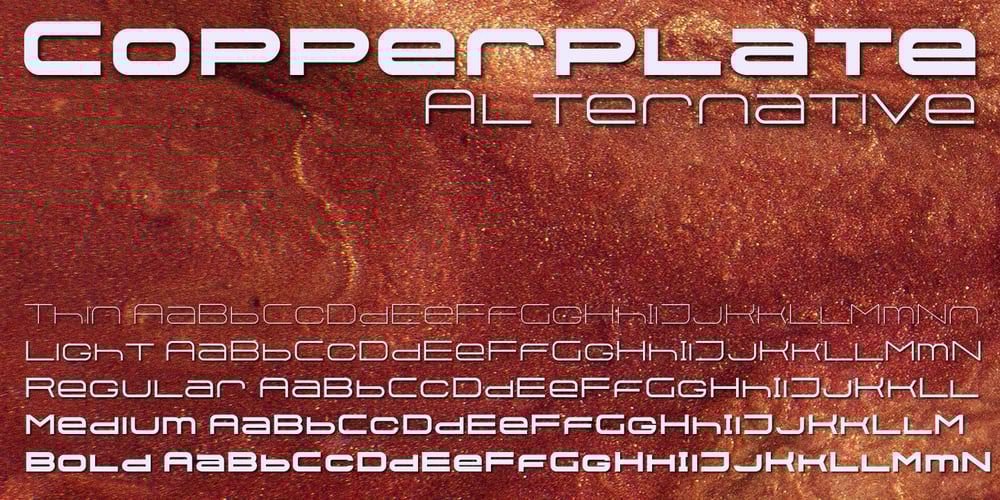
Copperplate Alt Font Family was designed by Gert Wiescher and published by Wiescher Design. Copperplate Alt contains 5 styles and family package options. Copperplate Alt is the sister font to Copperplate Wide. The »Alt« version stands for alternative and has lowercase letters that are slightly smaller than the uppercase. It gives you another possibility to use this elegant typeface. Your forever inventive type designer – Gert Wiescher